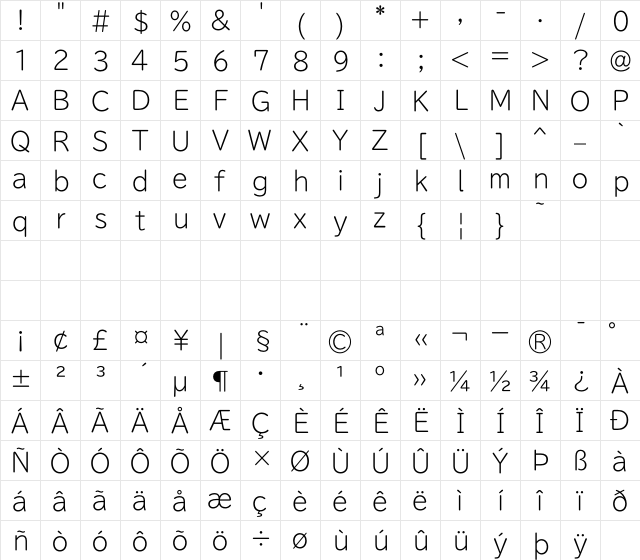
Complete TBUDRGothic Std SL glyph index. Displaying only characters natively supported by TBUDRGothic Std SL font.
TBUDRGothic Std takes a clean, functional approach - its unadorned letterforms prioritise legibility and work reliably across screen and print environments.
Font Pairing: Works well alongside a characterful serif or display font that can carry the expressive load while TBUDRGothic Std handles the functional copy.
Pro Tip: Use TBUDRGothic Std for UI labels, navigation, and short-form body copy where clean legibility is the priority.